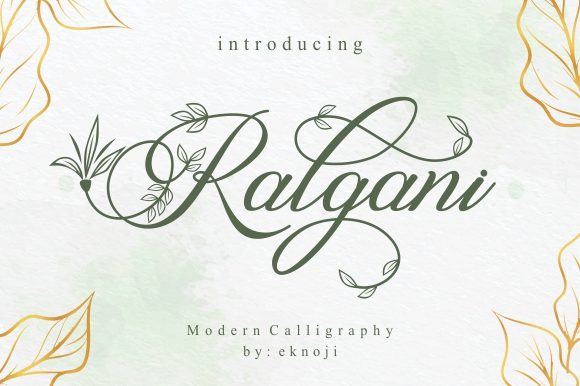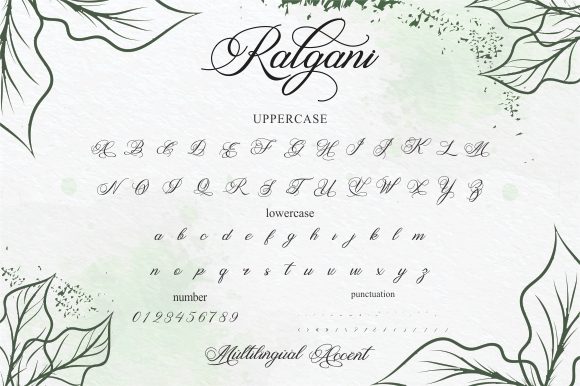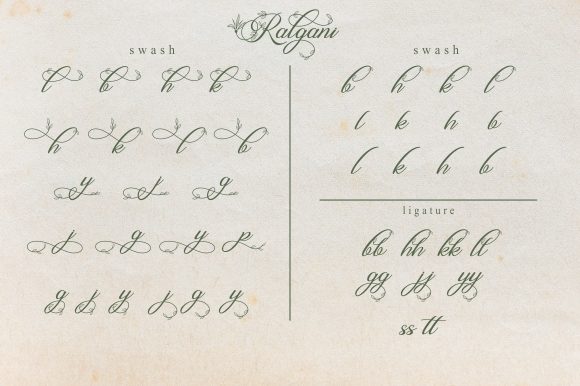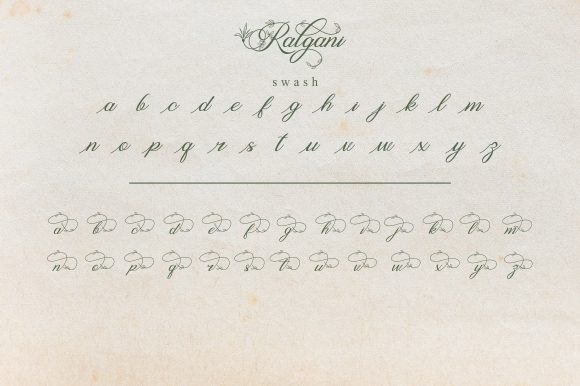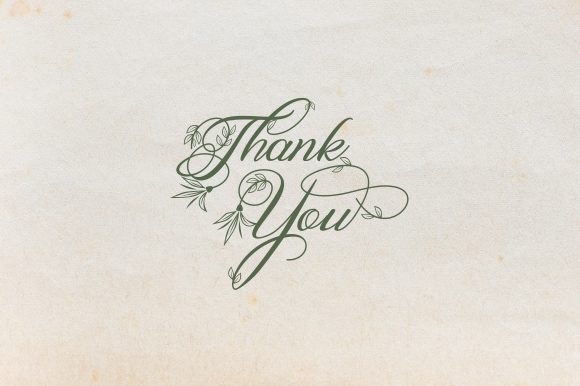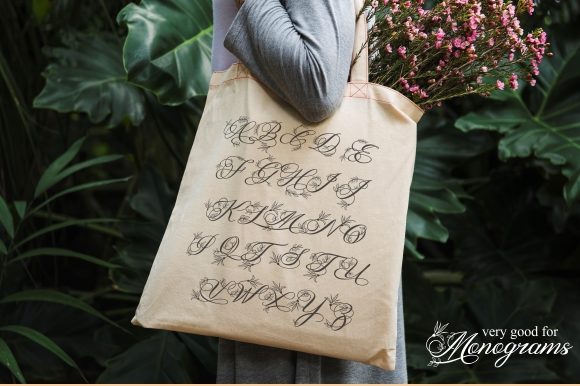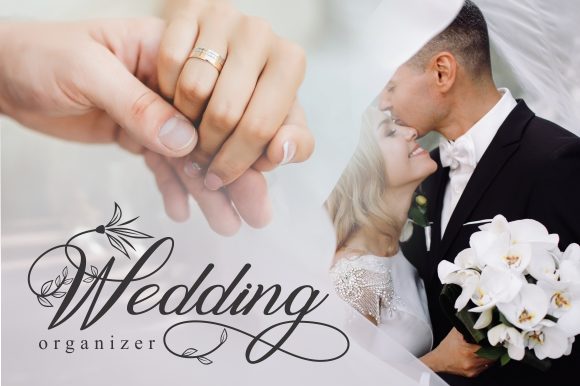
Ralgani Font
About Ralgani Font
Ralgani is a gorgeous and romantic handwritten font. It features a varying baseline, smooth lines, gorgeous glyphs and stunning alternates. It’s the perfect font for wedding projects!